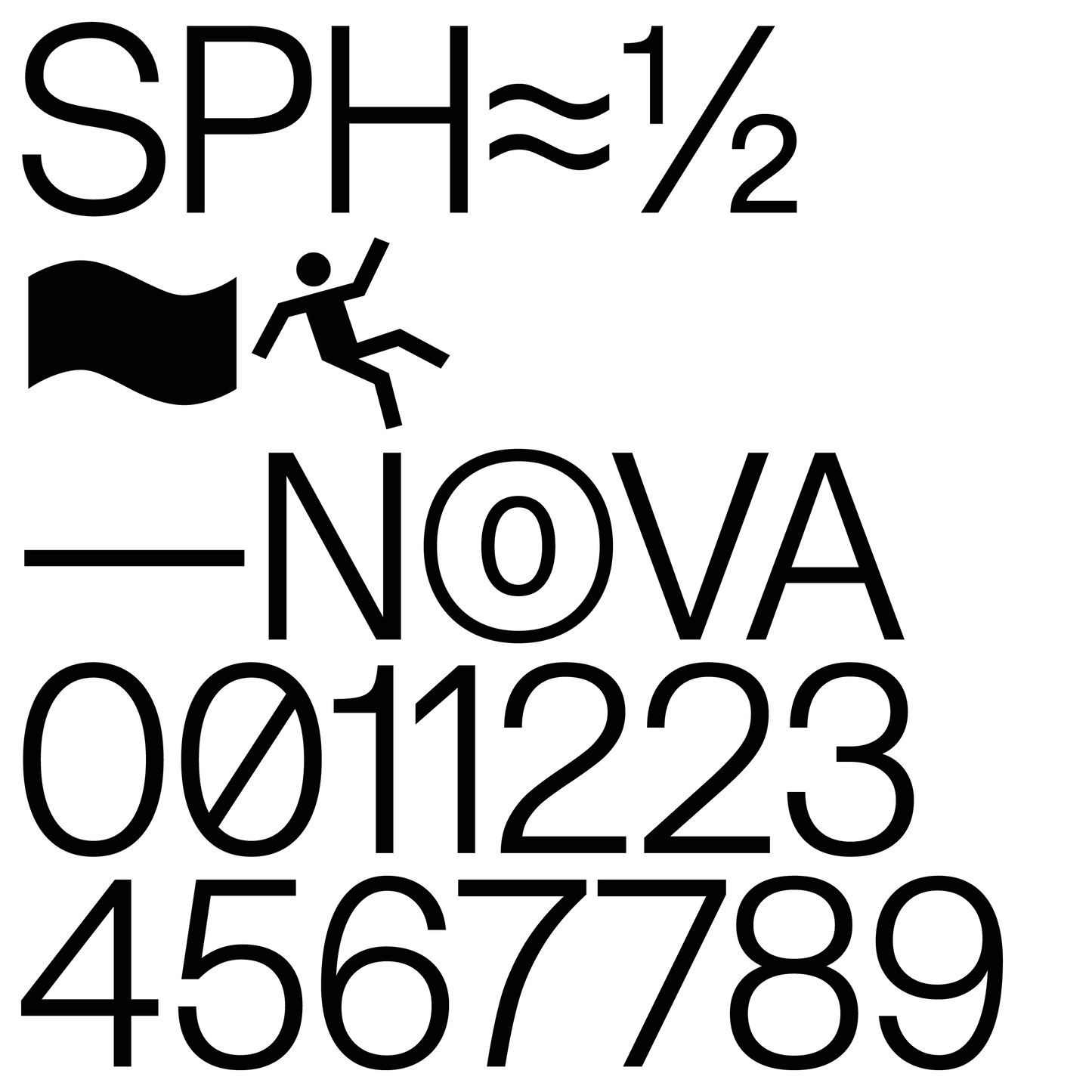
Regesto Grotesk
Giulio Puccini
Regesto Grotesk is a contemporary variable sans serif typeface that draws inspiration from the typographic standards of 1960s Swiss modernism. The family is composed of 7 styles from UltraLight to Black. The slightly tighter kerning makes it optimal for display use but can easily fit any project.
– Variable on Weight Axis
– Standard Ligatures
– Discretionary Ligatures
– Fractions
– Ordinals
– Localised Forms
– Stylistic Alternates